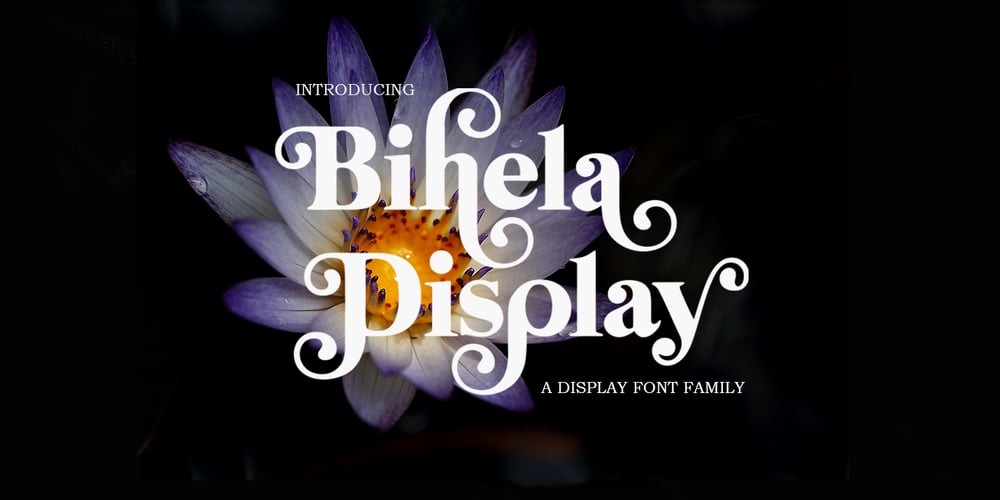
Bihela Display
Bihela Display font
Bihela Display Font Family was designed by Muammar and published by Scoothtype. Bihela Display contains 2 styles and family package options. Bihela Display is a modern vintage serif font packaged in a modern and classy style, complete with access to your OpenType features to access a large selection of alternates letters and ligatures, the choice of letters you like from variations of uppercase and lowercase letters to get a display luxurious and elegant.Unique, playful and versatile serif family with alternates and Ligatures to beautify the design you like. This font is perfect for branding projects, Logo design, Clothing Branding, packaging, magazine headings, advertising, T-shirts, postcards and much more.What is included:Bihela Display RegularBihela Display is coded with PUA Unicode, which allows full access to all additional characters without having to design any special software. Mac users can use Font Book, and Windows users can use Character Map to view and copy any additional characters to paste into your favorite text editor/app.Thank you